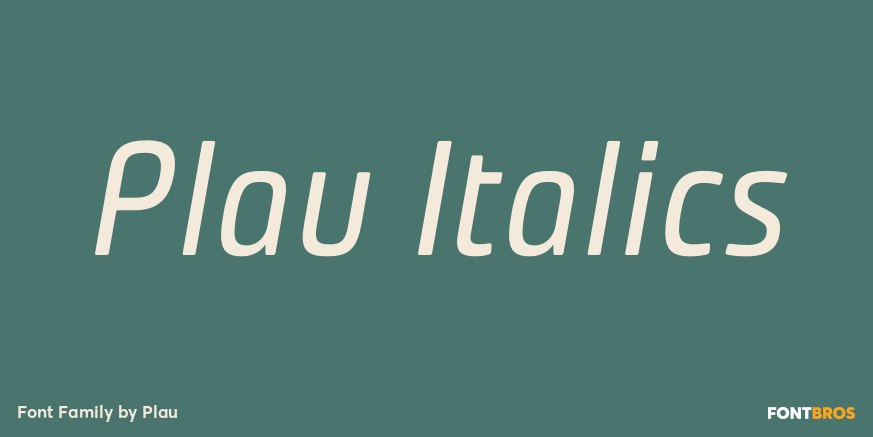
Plau Italics
About Plau Italics
Futurist italic typeface from the programming era, Plau is a sans-serif with rounded corner personality and interestingly deliberate lettershapes. Comfortable in headlines, reads surprisingly well in longer passages of text. Includes the following OpenType…